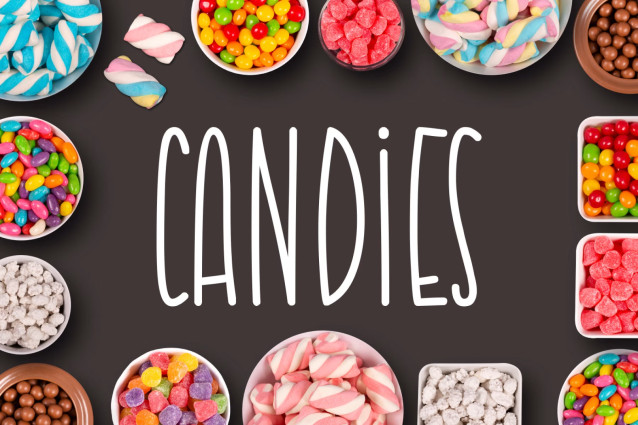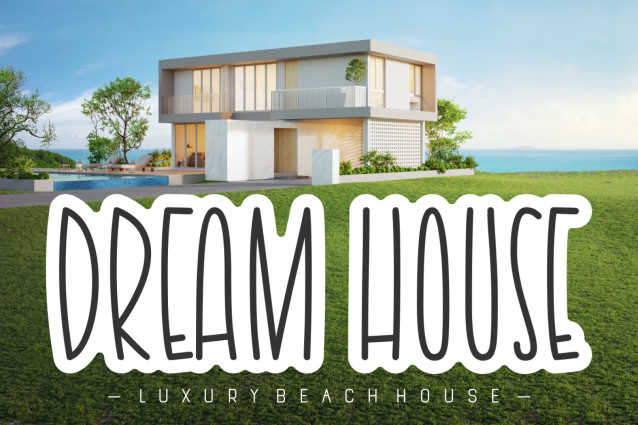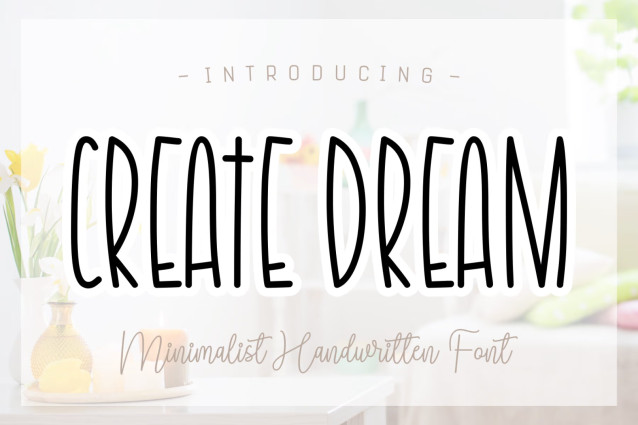
Create Dream Font
Create Dream is a fresh and casual handwritten font. This minimalist and clean vibe can easily apply to your favorite designs such as book covers, magazines, social media posts, invitations, and so much more!